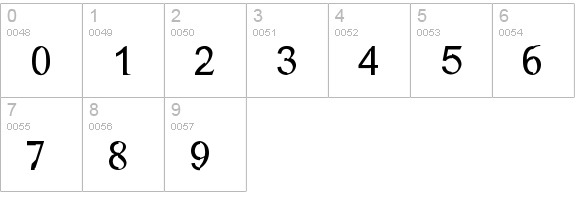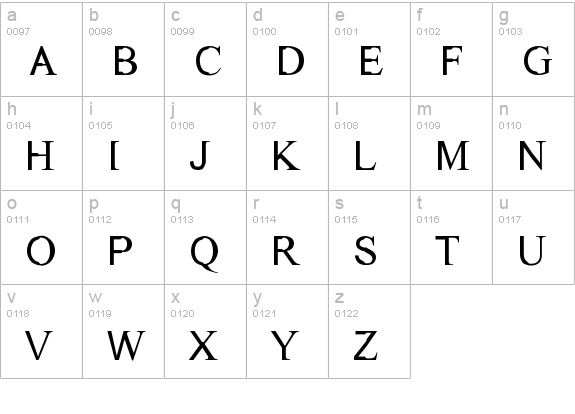
Dichotomy Font Details
Dichotomy font is a stunning display typeface that beautifully combines elements of modern sophistication with a touch of vintage charm. Its unique blend of sharp edges and elegant curves creates a striking visual dichotomy that is sure to make any design stand out. The versatility of Dichotomy font allows it to be used for a wide range of projects, from branding and advertising to editorial design and more. This font is the perfect choice for those looking to add a touch of personality and flair to their work. Whether you're creating a bold headline or a stylish logo, Dichotomy font will help you make a lasting impression. Best of all, Dichotomy font is available for free download at FontsMarket.com, making it accessible to designers of all levels. Don't miss out on the opportunity to elevate your designs with this truly unique and eye-catching font. Download Dichotomy font today and let your creativity shine!